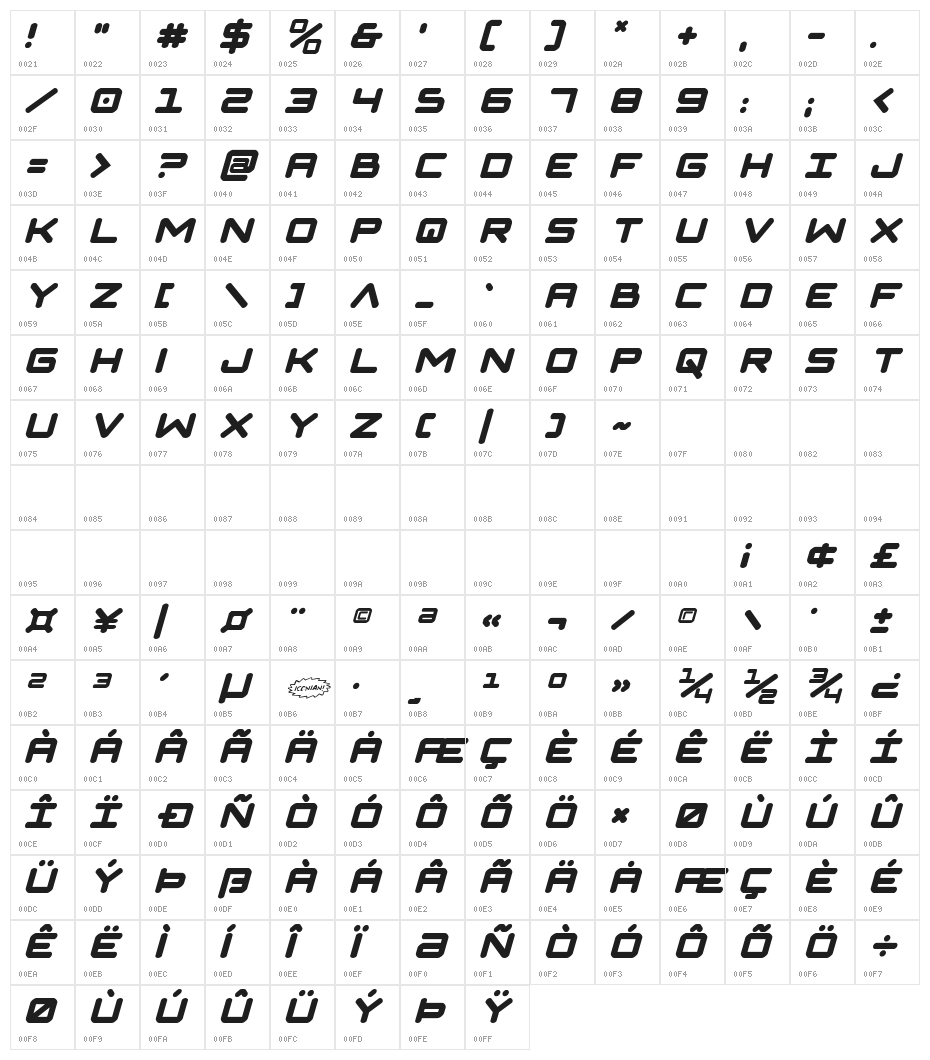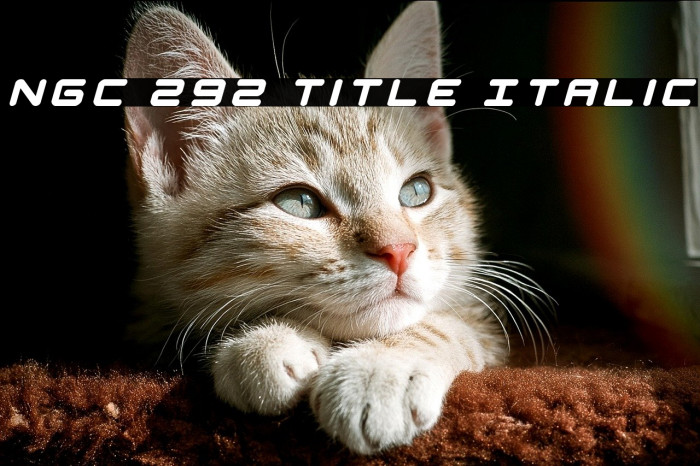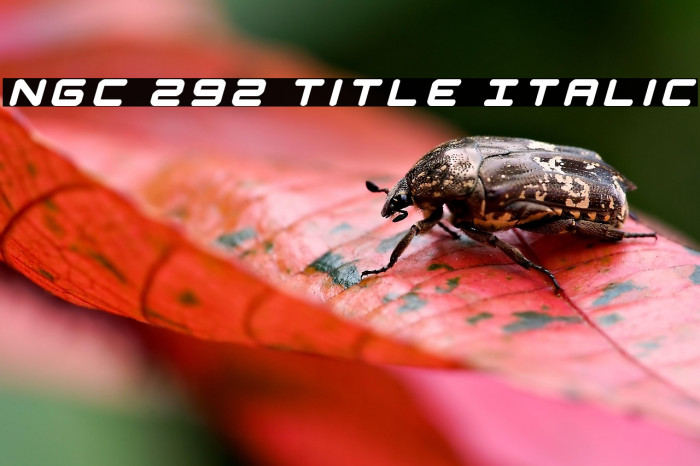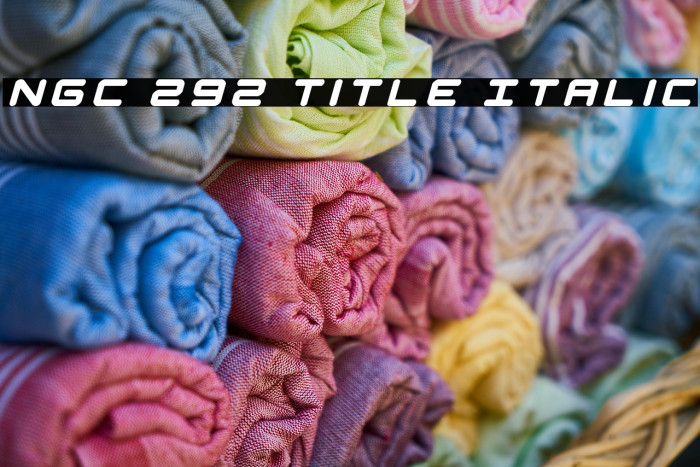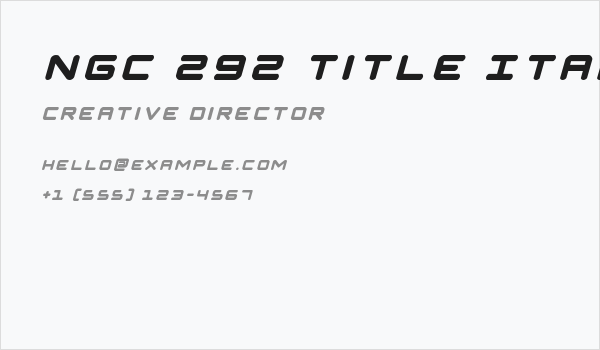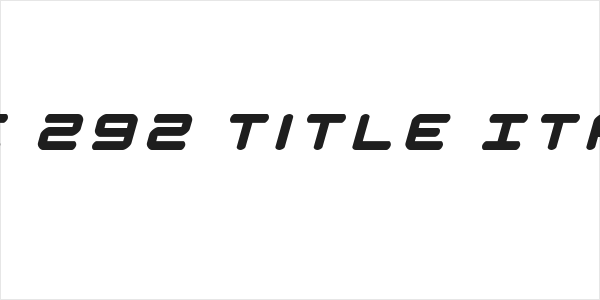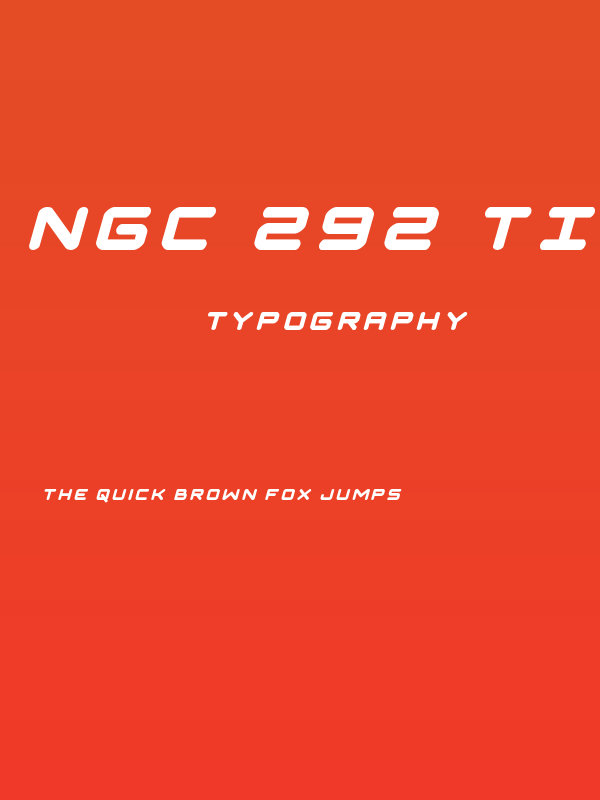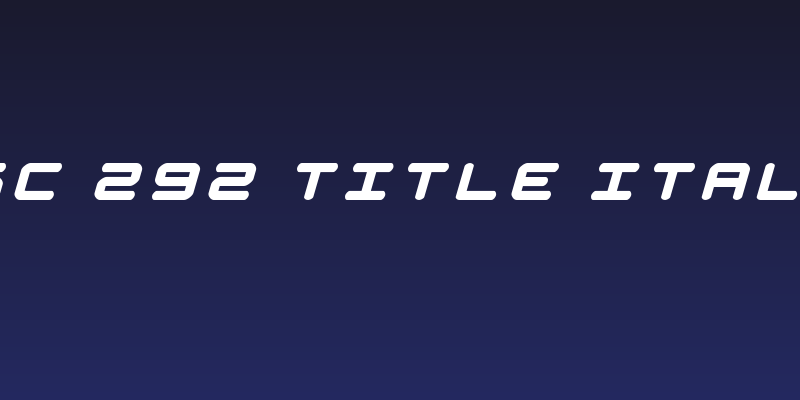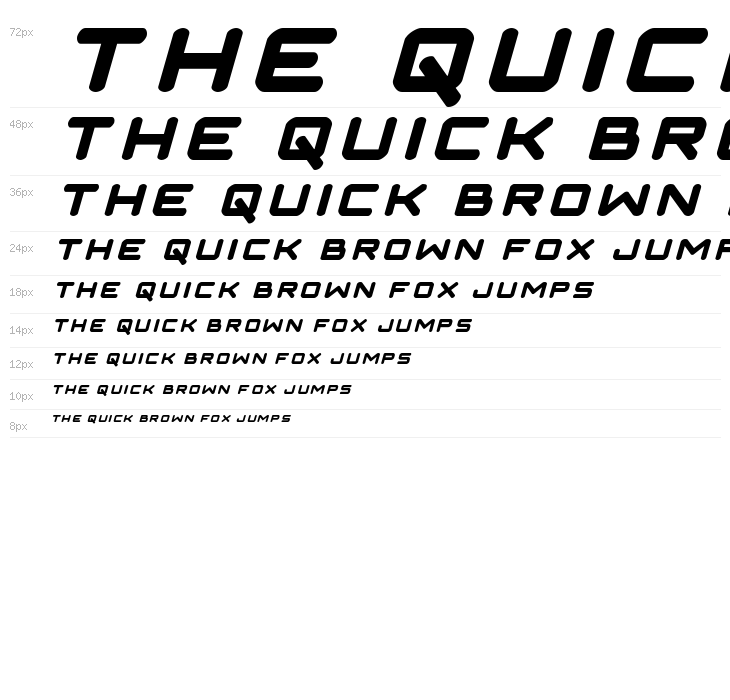
NGC 292 Title Italic Font
NGC 292 Title Italic Description
This font features a modern, italic style with a sleek and futuristic appearance. The characters are slightly slanted, giving a sense of motion and dynamism. The design is clean and geometric, with rounded edges that soften the overall look. The uppercase and lowercase letters maintain a consistent style, while the numerals and special characters are designed to complement the alphabet. The font's structure is uniform, with consistent stroke widths that provide a balanced and harmonious appearance. The spacing between characters is normal, ensuring readability while maintaining the font's distinctive style.
| Use Case | Headlines, Logos, Digital Interfaces |
| Proposed Projects | Ideal for technology branding, sci-fi themed projects, modern advertising, and digital interfaces. |